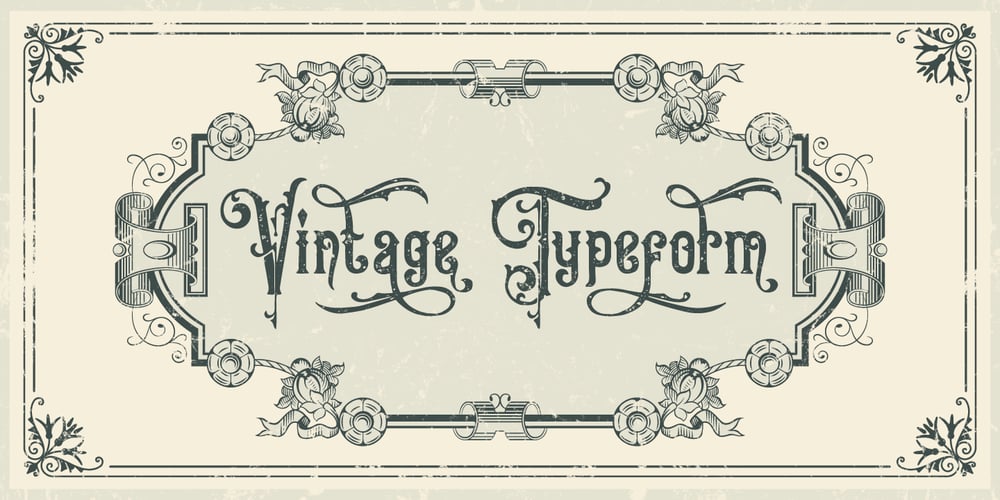
Victorian Fonts Collection Font Family was designed by Eric Kurniawan and published by Burntilldead. Victorian Fonts Collection contains 14 styles and family package options. Have you ever imagine to make layered Victorian logo as fast as you blink your eyes? or even make your document and website with victorian classical vibes? Abracadabra! Introducing you opentype font… King Edward and Queen Victoria fonts in one solid package. Very victorian, ornamental, decorative and classical. A solid combination that can bring your design, logo, document, website, etc. back to 1800 decade. Multilingual fonts-family and playful one with 200 alternate characters. Personal & commercial license is included! HOW TO GET ACCESS TO ALTERNATES? Make sure you run an APP or Software that allow you to access Glyph panel. All characters are available through Glyph panel, even more each of the alternate letter has it’s own unicode (PUA) so you can copy/paste from Apple Font Book or Windows Character Map. Total amount of glyphs 1814. OPENTYPE FEATURES – First lowercase (after a capital) and last letter swap automatically. You just need turn on Contextual Alternates. The Victorian graphic Dingbats collection joined together into standard font format (OTF and TTF). Easy to use and great for your decorative document, layout, sign, logo, etc.